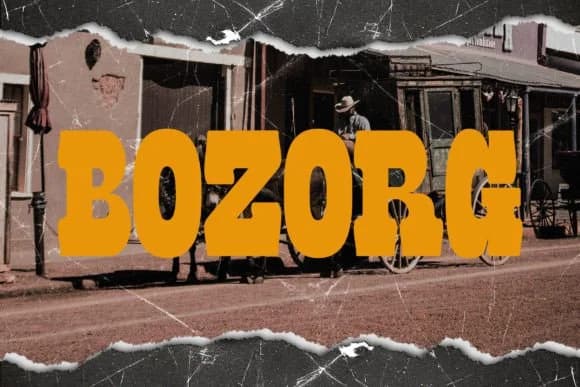
Rantuboy taps into that irreverent, unapologetic energy of mid-century display work. Designed by niankeun, this slab-serif display font merges genuine vintage warmth with contemporary sensibility, making it feel both rooted in the past and genuinely relevant today.
This typeface excels at bringing character to specific design challenges. Craft brewery labels, vintage-inspired restaurant logos, and retro poster campaigns all benefit from its confident, blocky presence. Substantial letterforms also command attention on boutique product packaging where you need genuine shelf presence without resorting to excess or decoration. Its friendly boldness makes it equally at home on band merchandise designs, vintage-themed event posters, and the kind of playful branding work where personality and impact matter most. The sturdy slab serifs give it a grounded, accessible feel that reads as both professional and fun.
With enough weight and presence to stand alone as headline text, Rantuboy pairs beautifully with a clean geometric sans-serif for body copy, creating natural hierarchy and breathing room across a layout. This contrast between chunky serifs and minimalist companion text works elegantly in practice and scales well across different media. Find it on Creative Fabrica and put this retro-hearted workhorse to good use on your next project.
- Sturdy, Confident, Retro Font
Rantuboy Font is a slab serif font that shines as a display or heading face. Pair it with a clean sans-serif or serif font for body text β the contrast creates a clear hierarchy while the two styles stay balanced and easy to read.